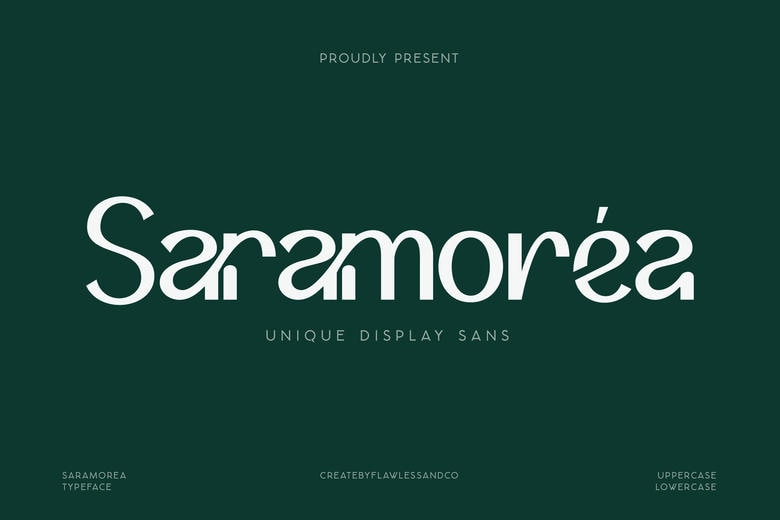
Saramorea Font
Saramorea is a bold sans serif typeface that blends expressive style with artistic elegance. Featuring high-contrast strokes, wide letterforms, and stylish curves, it’s perfect for luxury branding, fashion editorials, social media, and statement-making designs.
Equipped with alternates, ligatures, and multilingual support, Saramorea brings sophistication and dramatic flair to any layout. Ideal for designers and brand creators who value premium aesthetics, Saramorea helps your visuals stand out with confidence and creativity.
Saramorea Sans Serif Font